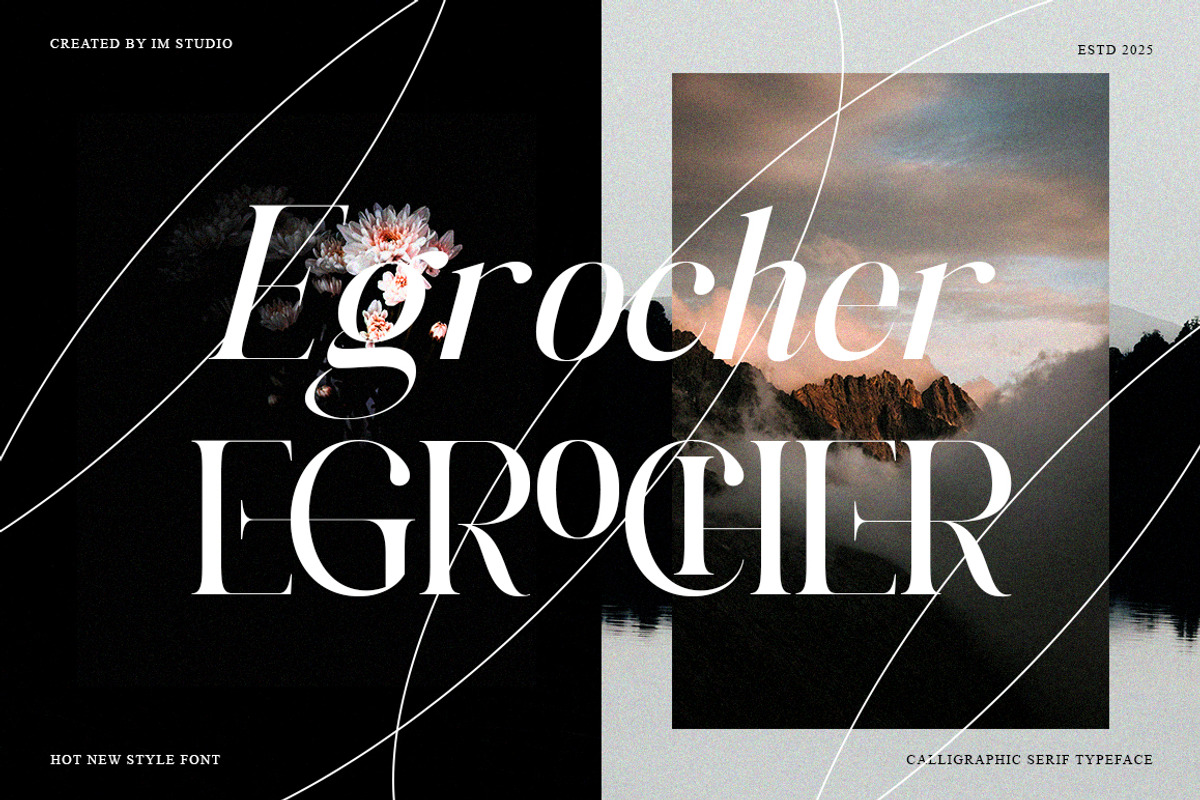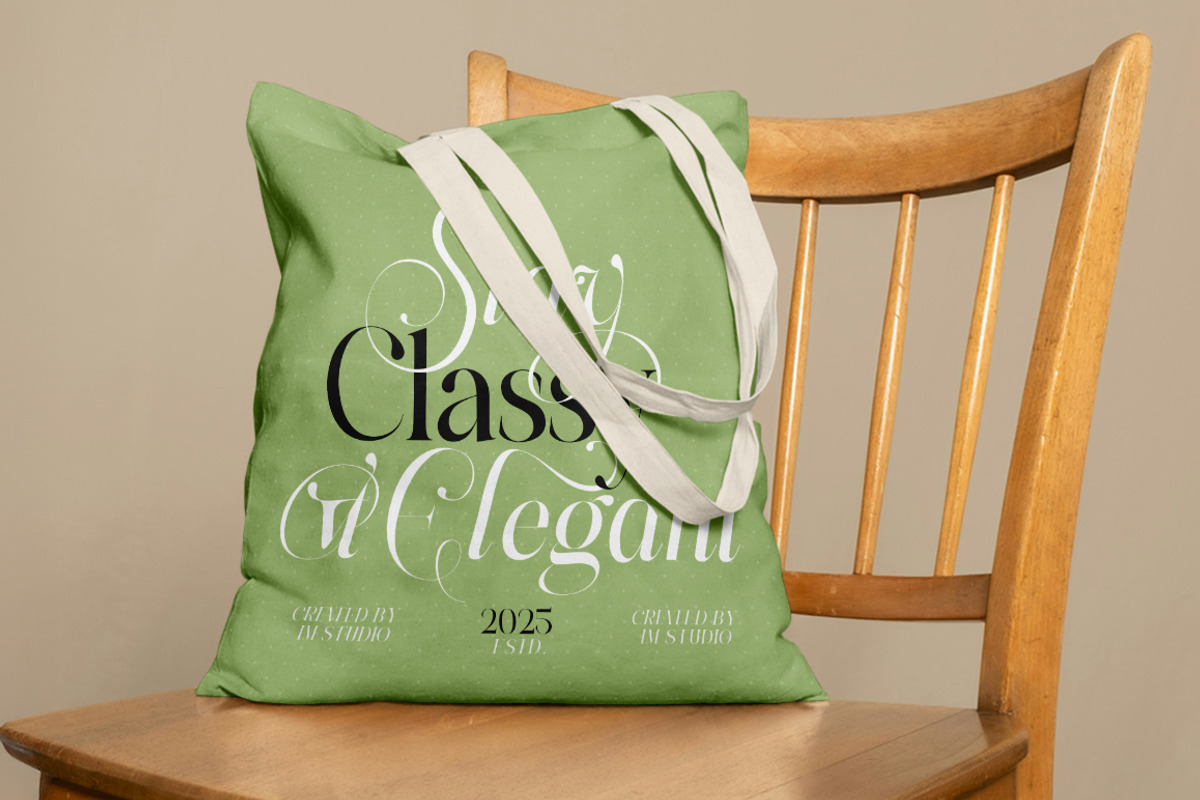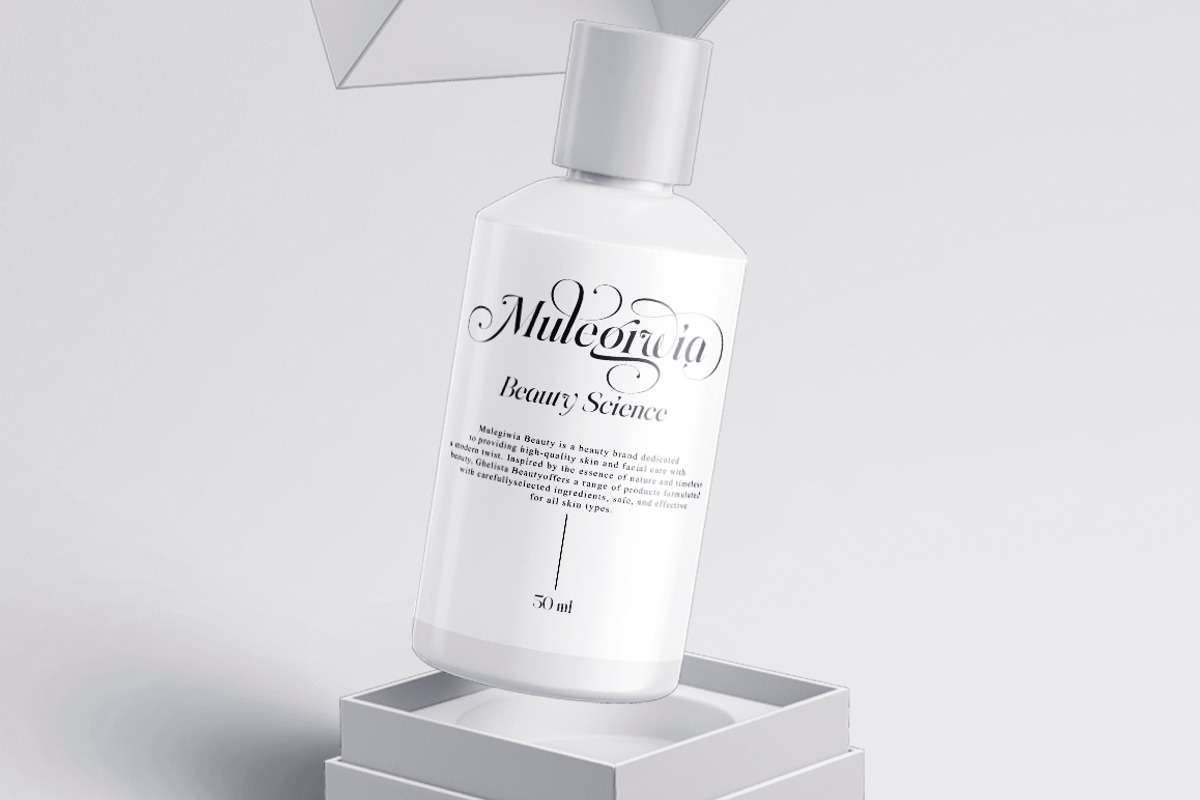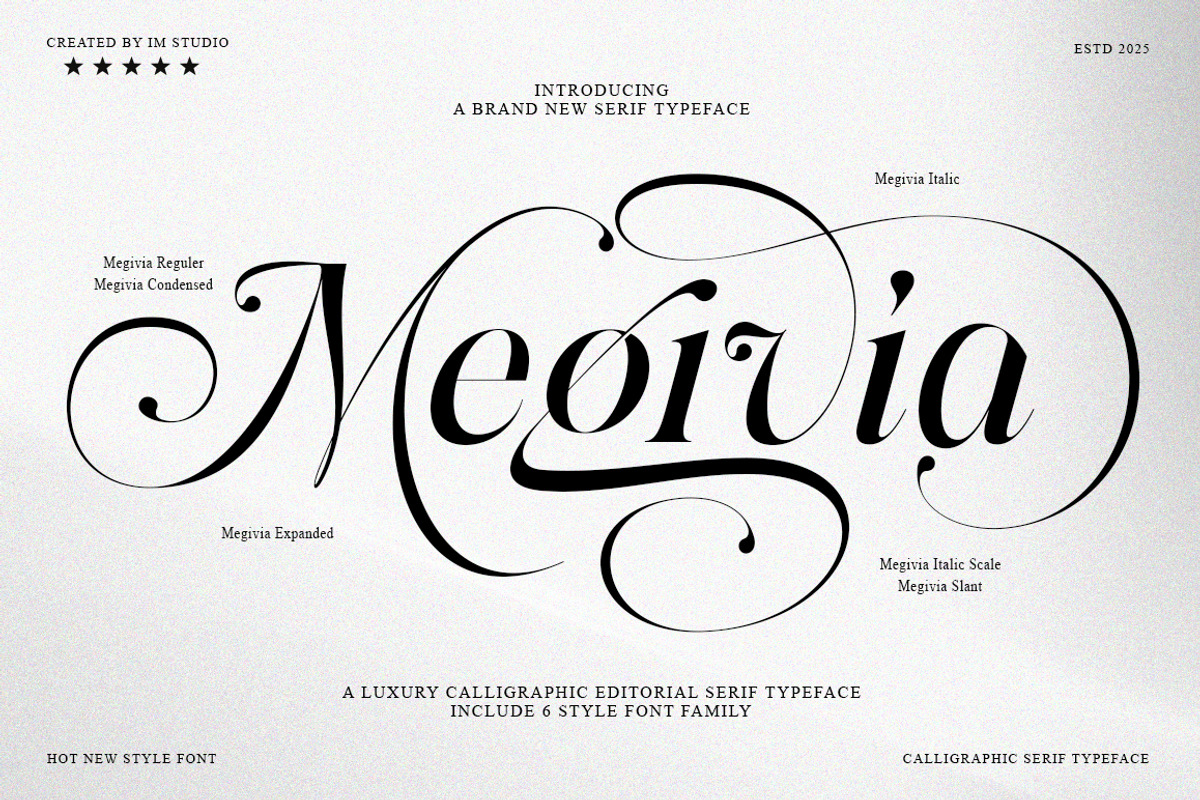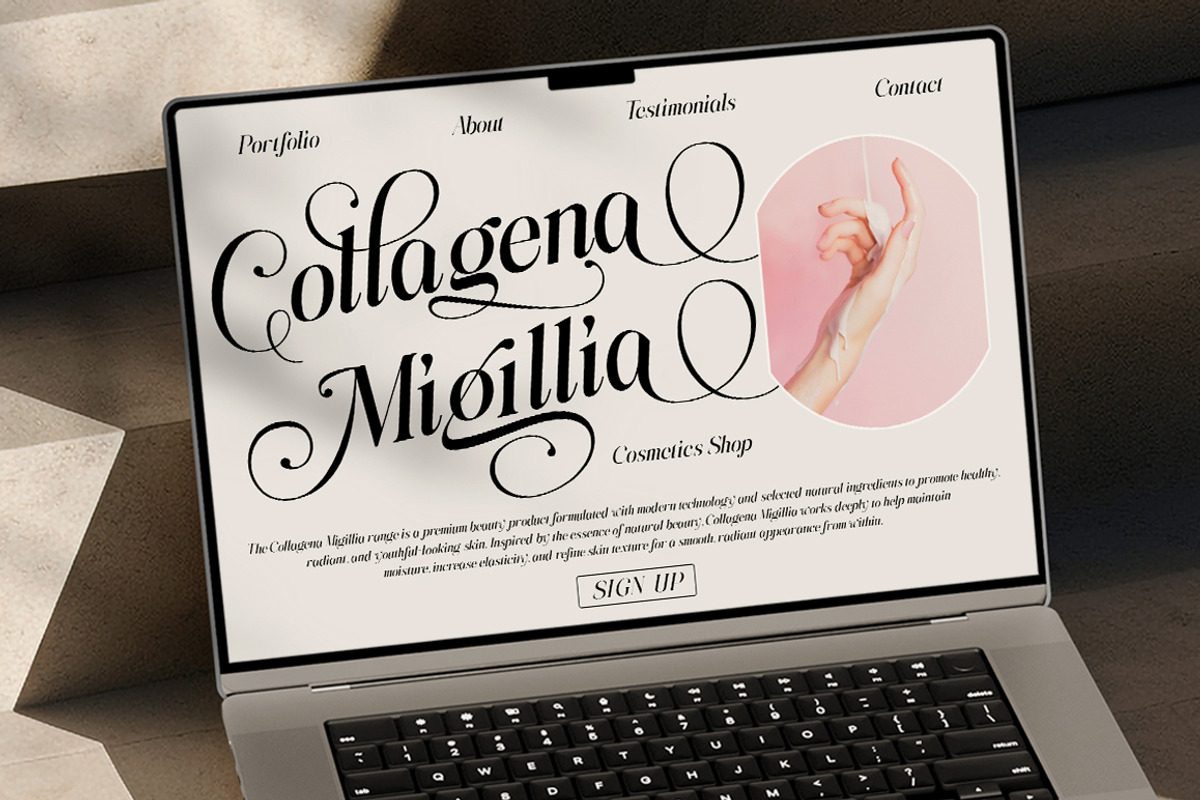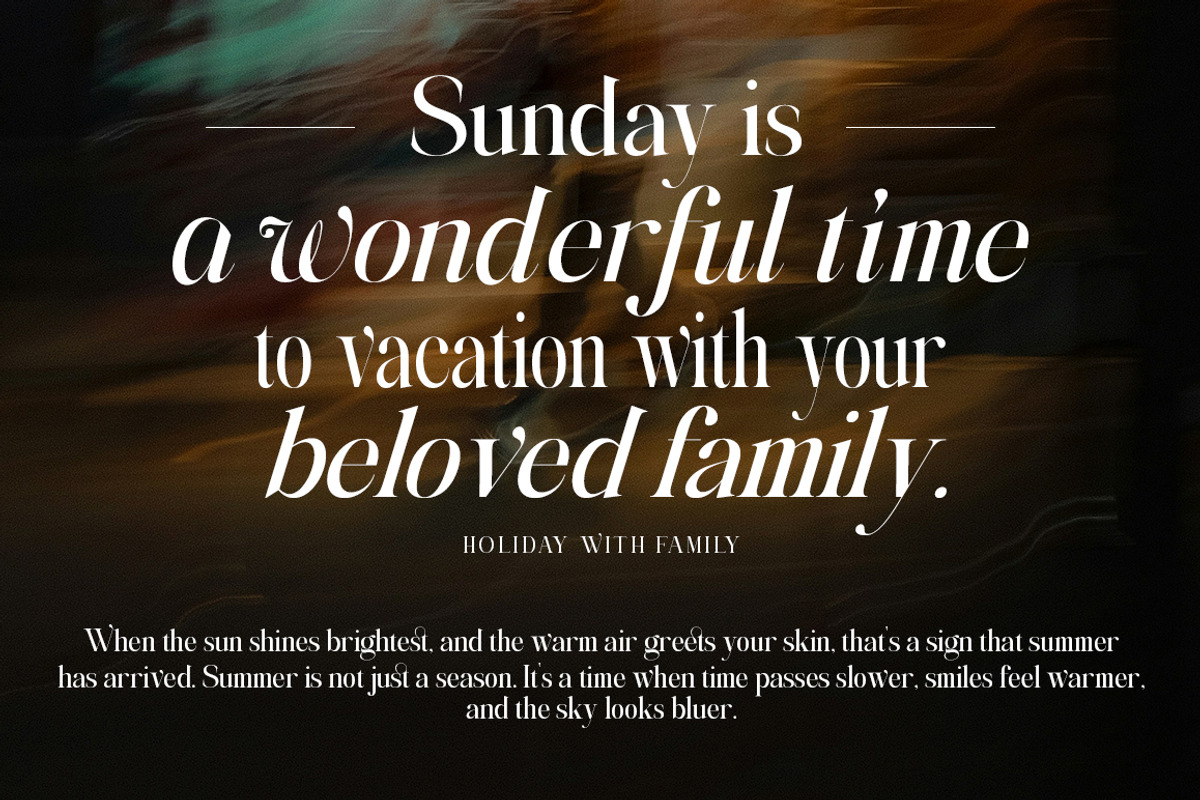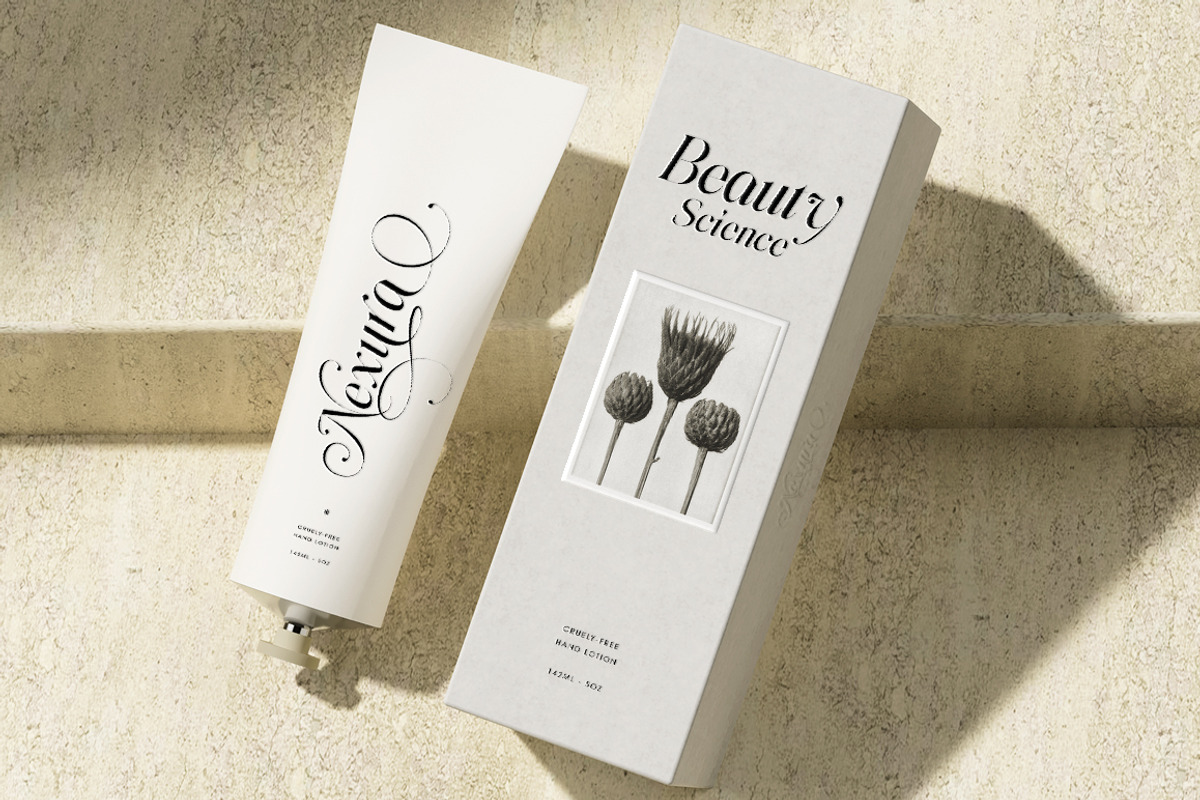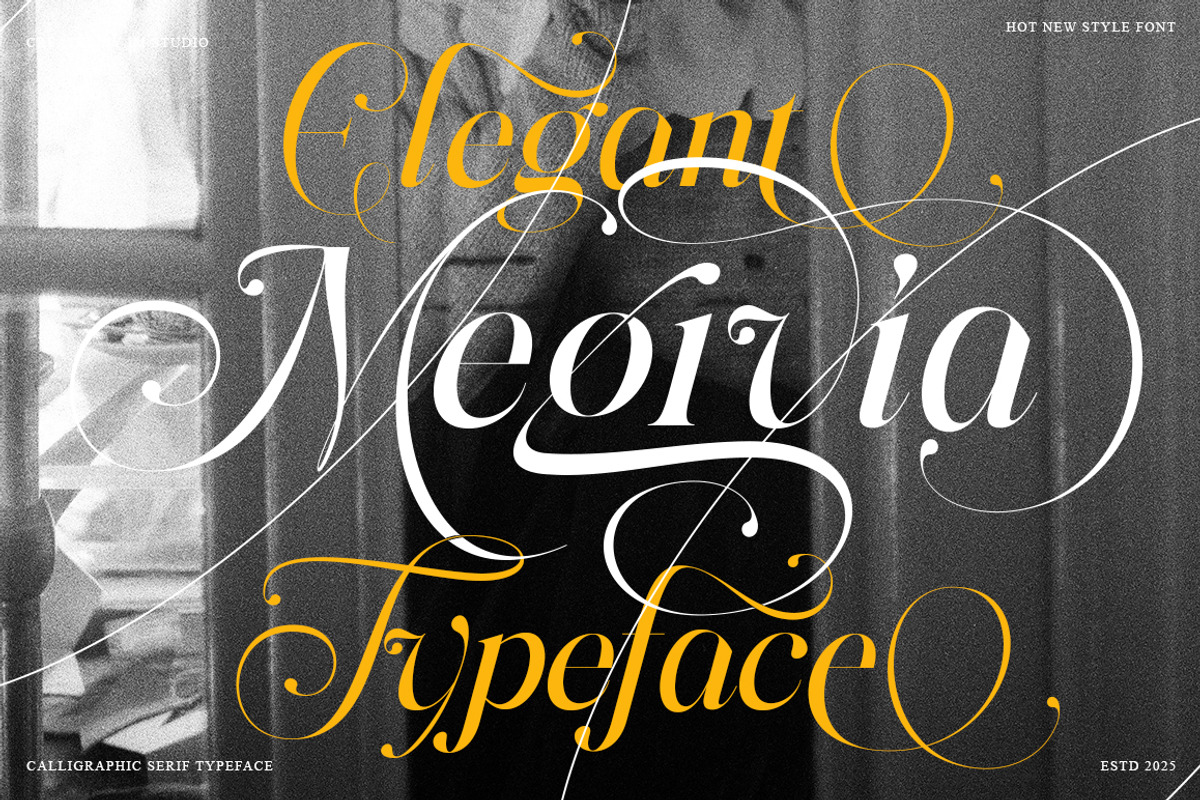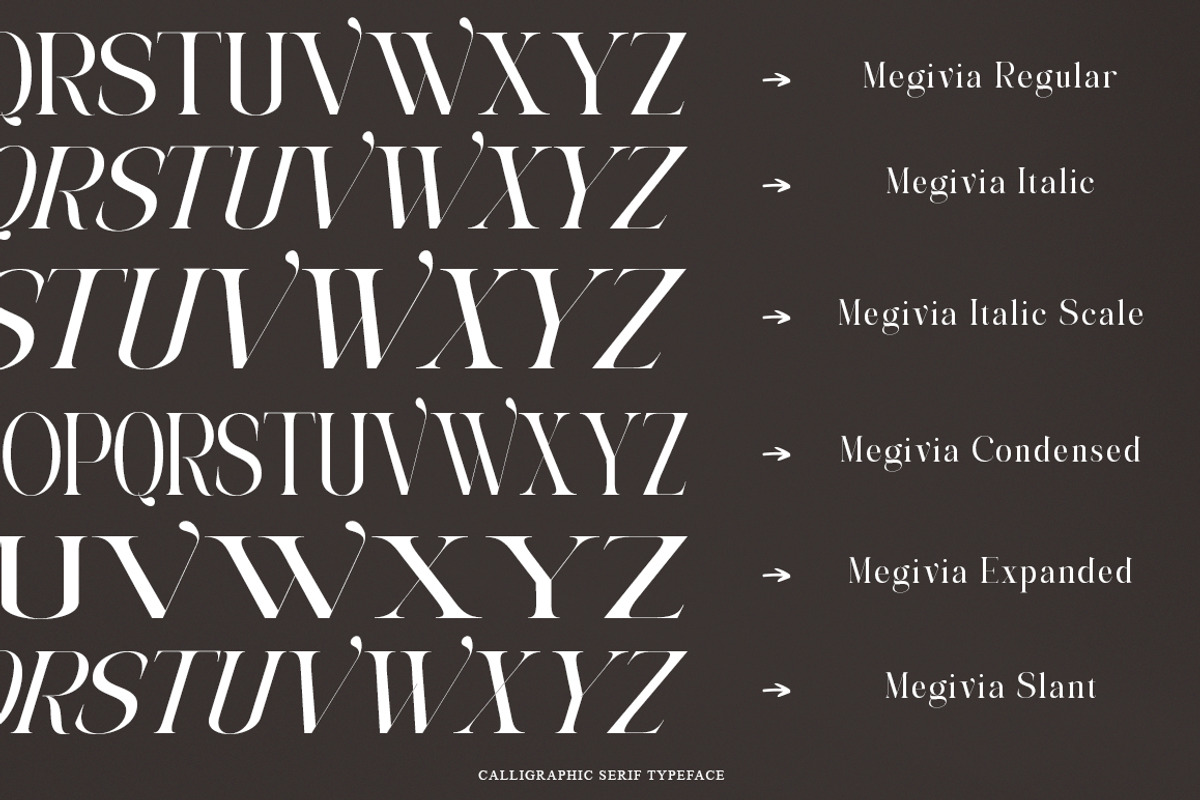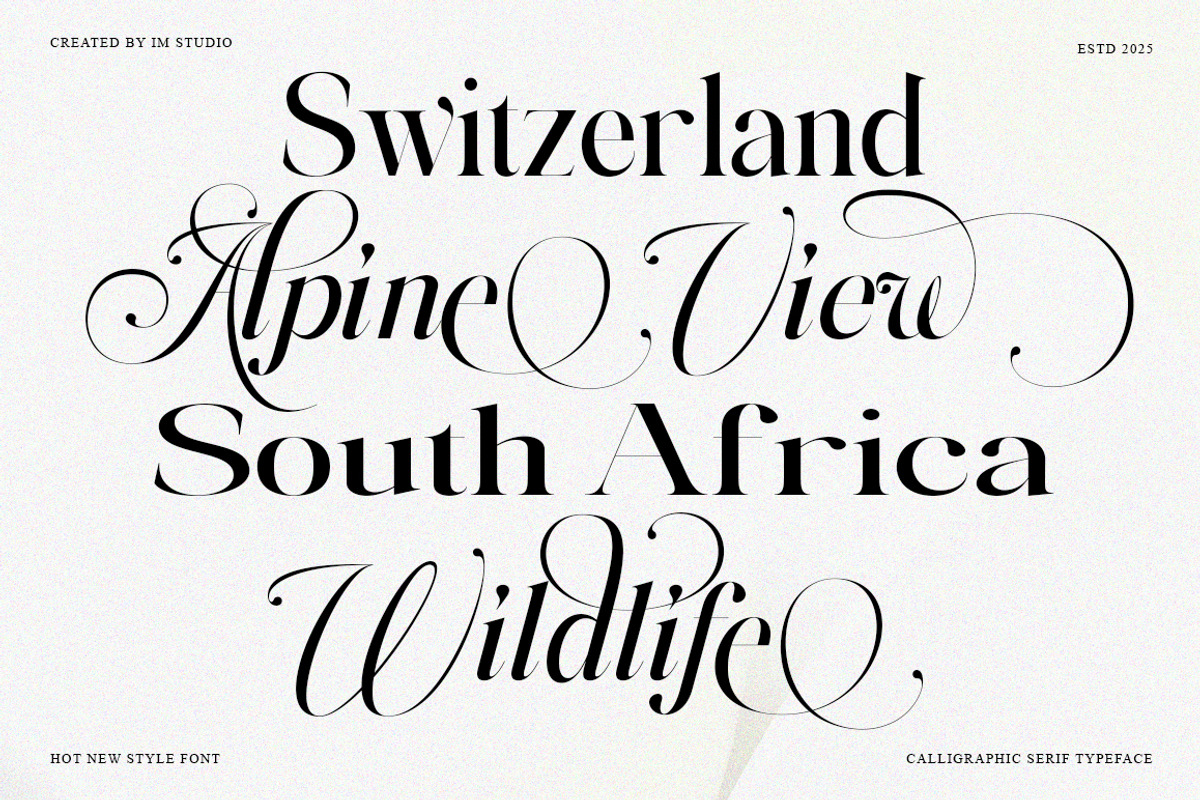
Megivia Calligraphyc Serif | 6 Fonts
Megivia – Calligraphy Serif Typeface | Include 6 File Fonts.
Megivia is a graceful calligraphy serif typeface, blending timeless elegance with modern sophistication. Designed with expressive strokes and subtle details, this typeface offers a perfect balance of romance and structure.
This versatile typeface comes in a variety of styles—Regular, Italic, Expanded, Condensed, Scaled Italic, and Slant—each crafted with sweeping calligraphic curves and meticulously drawn alternates. With a rich set of ligatures and stylistic variations, Megivia gives you unlimited creative flexibility.
Ideal for editorial layouts, fashion packaging, premium branding, invitations, headlines, and logos, Megivia consistently delivers bold yet elegant results.
Equipped with multilingual support, full punctuation, numerals, and extensive OpenType features, this typeface is an exceptional choice for designers seeking sophistication and impact in their visual identities.